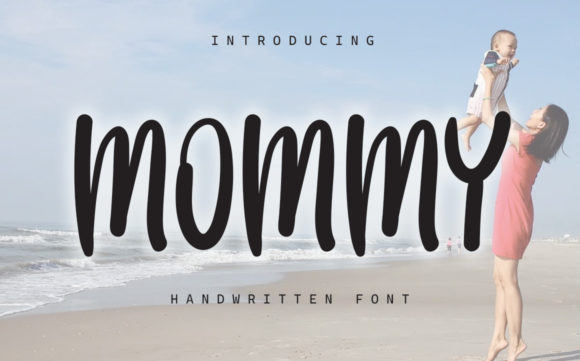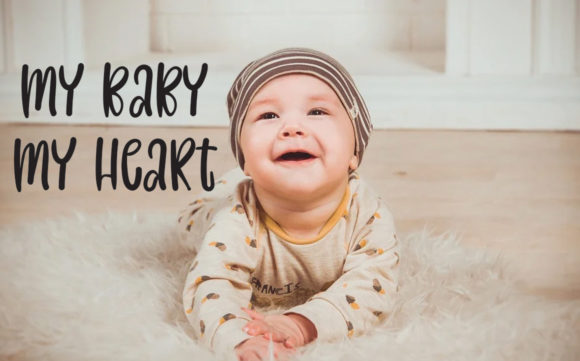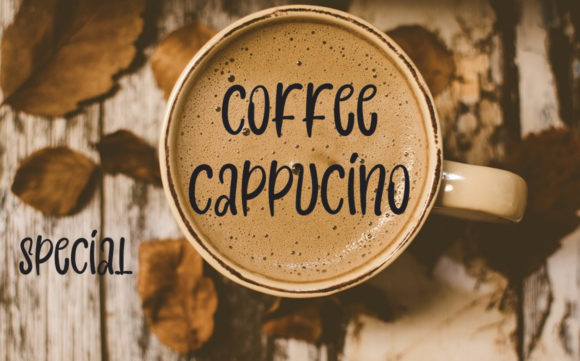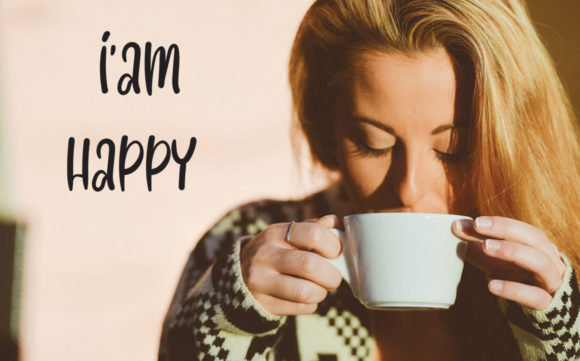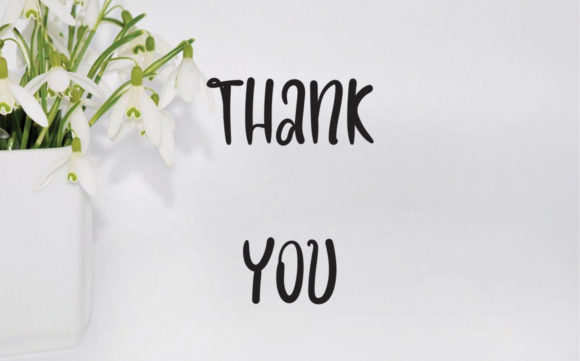
Mommy Font
About Mommy Font
“Mommy” is a charming and flowing handwritten font that adds a touch of warmth and personality to a variety of design projects. Its casual yet stylish appearance makes it versatile and suitable for numerous applications.
In wall displays, “Mommy” can create inviting and visually appealing compositions. Its flowing and friendly letters can bring a sense of comfort and approachability to the display, making it a welcoming focal point.
For wedding invitations, “Mommy” can infuse a sense of intimacy and personal touch into the design. Whether used for headlines, names, or other details, this font can convey a heartfelt and genuine sentiment, setting the tone for a special occasion.
When applied to branding and social media, “Mommy” can help establish a relatable and approachable image. It can be used for logos, social media post logos, and advertisements that reflect a sense of authenticity and connection with the audience.
In product packaging and design, “Mommy” can add a touch of handmade charm and authenticity to labels, packaging, and product designs. Its natural and organic feel can resonate with consumers who appreciate a personal and genuine touch.
For photography and watermarking, “Mommy” can create subtle and friendly watermarks that enhance the visual appeal of images without overpowering them. Its handwritten appearance can add a personalized touch to your photographs.
Whether used for invitations, stationery, labels, or any project requiring impressive typography, “Mommy” brings a sense of warmth and authenticity to the design. Its flowing and approachable nature makes it a wonderful choice for projects where a personal and genuine touch is desired.